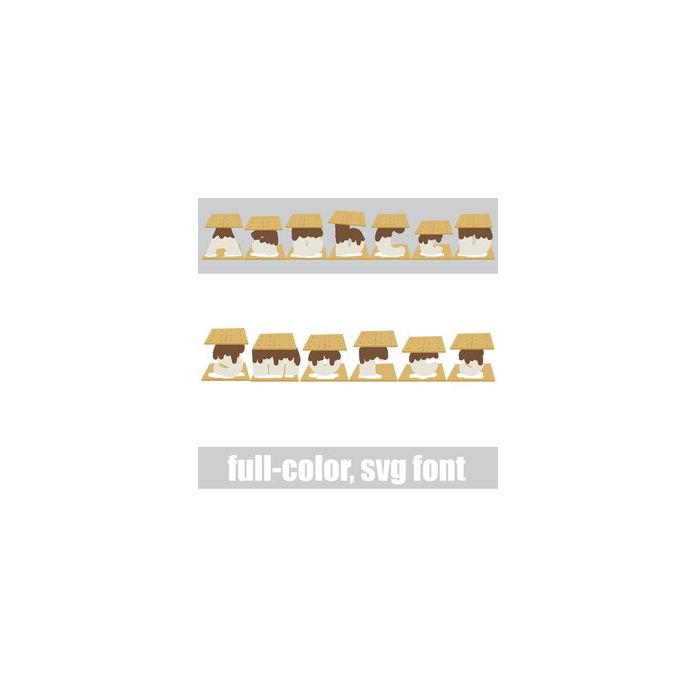
This full-color font features marshmallow letters in between crackers with melted chocolate. This font works best for titles, displays, posters and more. Please note color fonts will show as black in non compatible programs. This font type is compatible with Silhouette Studio.